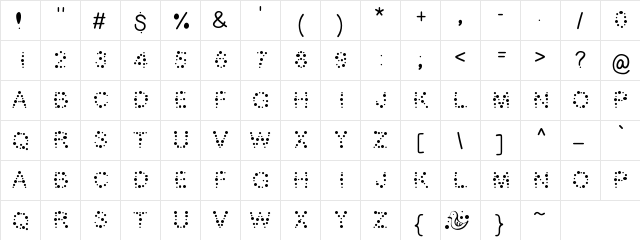
Bubble Bath Regular
Design Context for Bubble Bath Typeface
Bubble Bath trades formality for fun, with bouncy, characterful letterforms that bring warmth and energy to any project.
Font Pairing: Pairs well with a rounded or humanist sans for body copy, maintaining the friendly tone without relying on Bubble Bath to carry extended reading.
Pro Tip: Use Bubble Bath at larger display sizes where its expressive character can land. Pair with a clean, simple sans for body copy to maintain readability.